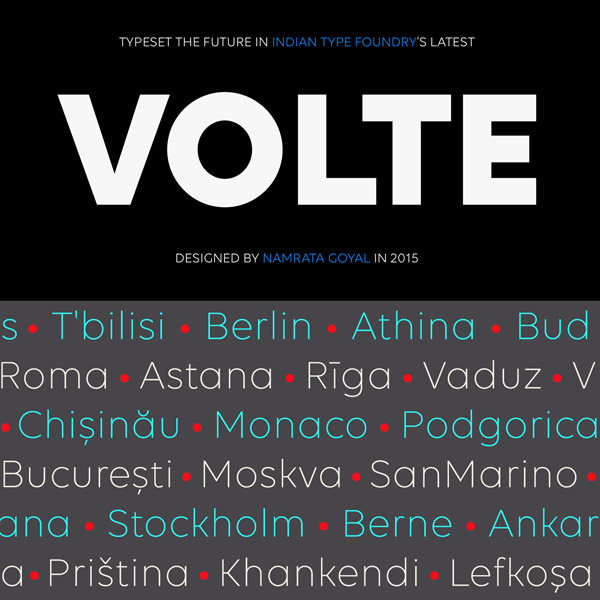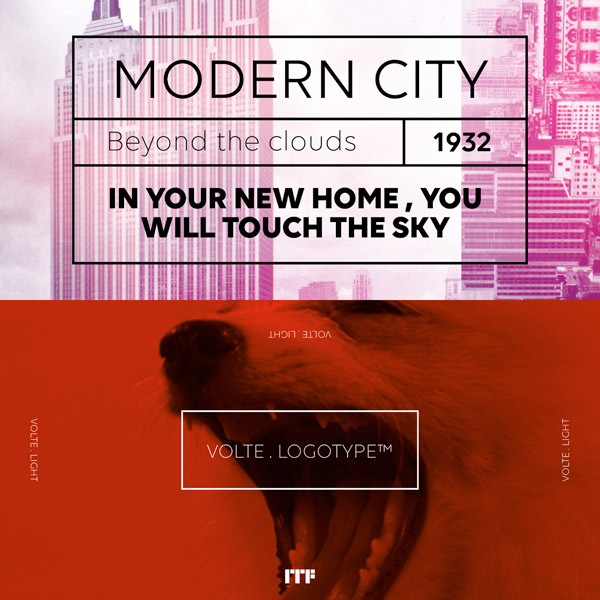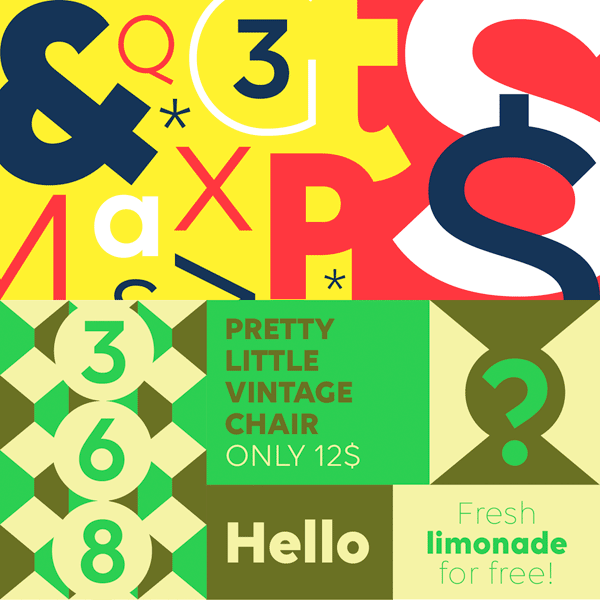
The Volte font family, a geometric sans serif typeface that is based on simplification and reduction.
Namrata Goyal, an Indian type designer has created the Volte font family in 2015. This new sans serif typeface is intended for the use in modern graphic design projects, whether websites, mobile applications or print products.
The family includes 5 basic weights of uprights (Light, Regular, Medium, Semibold, Bold). Each version is based on simplification and reduction. You can use it as geometric display font for large headlines, titles or subtitles. Its open letters as well as the clear structure of each character ensure great legibility. For further information about the Volte font family, please follow the link below.